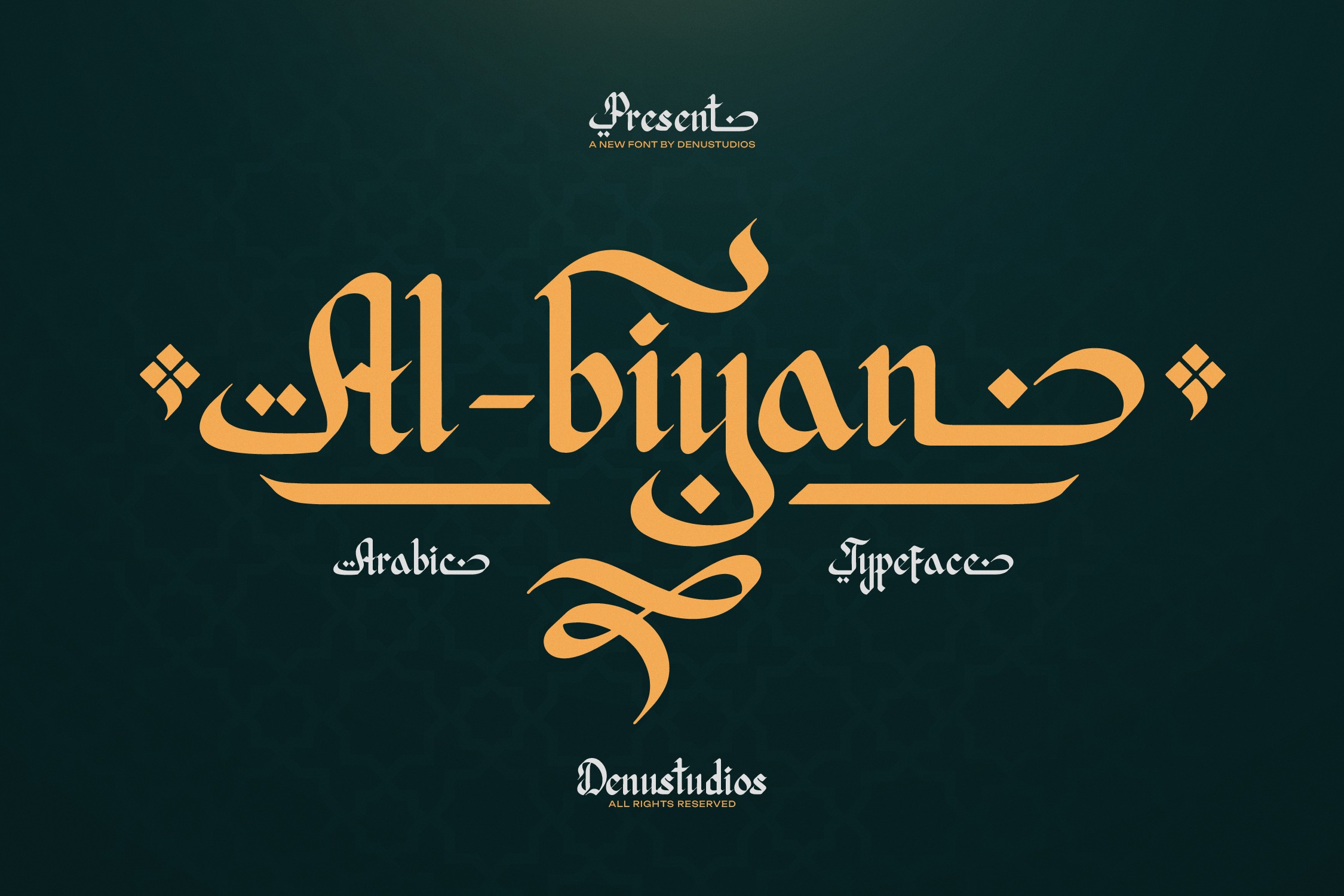
Al Biyan Font
Al Biyan Font is a flexible and reliable font created to fit multiple design needs, from branding and packaging to social media and editorial layouts. Al Biyan | Arabic Typeface, from Denustudios, suitable for any projects such as: logos, branding projects, homeware designs, product packaging, mugs, quotes, posters, shopping bags, t-shirts, book covers, name card, invitation cards, greeting cards, label, photography, watermark, special events, and all your other lovely projects that need a Arabic taste.